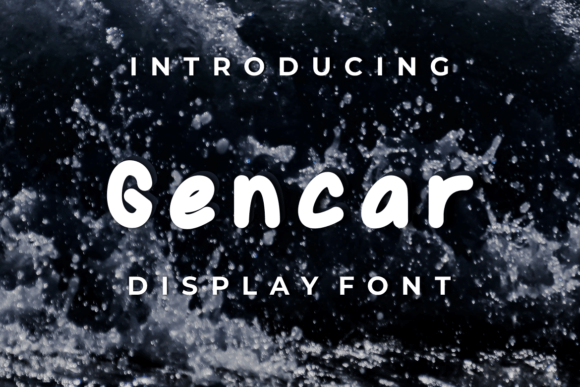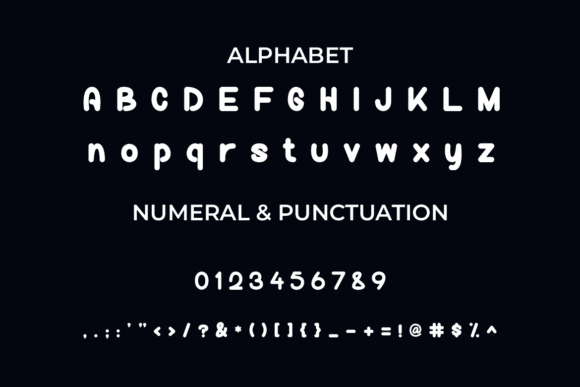
Unlock Your Creativity with the Gencar Font
Have you ever been stuck in a design rut, unable to find the perfect font to bring your vision to life? We’ve all been there. But what if I told you that there’s a font that’s guaranteed to add a spark of creativity to your next project? Enter the Gencar Font, a fun and quirky display font that’s about to become your new best friend.
The Gencar Font is more than just a pretty face – it’s a versatile tool that can elevate any creation, from eye-catching social media graphics to engaging advertising campaigns. Its unique character and playful vibe make it an instant hit with designers, and its value lies in its ability to add a touch of personality to even the most mundane designs.
- Unique Characteristics: Gencar Font features a modern and sleek design with clean lines, making it ideal for use in digital products, web design, and corporate branding.
Gencar Font Review
I recently had the chance to work with the Gencar font, and I must say it’s a unique addition to any design project. Here’s my honest take on this font.
- The Gencar font has a clean and modern aesthetic that works well for digital interfaces and print materials.
- The font is highly customizable, making it easy to adjust to different design needs.
- The font supports a wide range of languages, making it a great option for international projects.
- The font is highly legible, even at small font sizes.
- The font can feel a bit generic and lacks a distinct personality, which may not be suitable for projects that require a unique voice.
- The font may not be the best choice for projects that require a lot of emphasis or drama, as it can feel a bit flat.
- The font’s customization options can be overwhelming for beginners, making it difficult to find the right settings.
The Gencar font is a solid choice for designers who need a clean and modern font that’s easy to customize. While it may not be the most exciting option, it’s a reliable choice that can help get the job done. With a bit of tweaking, it can be a great addition to any design project.
Tips for Getting the Most Out of Gencar Font
Here are some tips to help you get the most out of Gencar Font:
- Pair Gencar Font with other fonts to create a unique and visually appealing design.
- Use Gencar Font for headings and titles to add emphasis and hierarchy to your design.
Common Use Cases for Gencar Font
Gencar Font is commonly used in:
- Logos and branding materials.
- Website design and development.
Alternatives to Gencar Font for Designers
1. Poppins Font
Poppins Font is a modern sans-serif font designed by Indian type foundry, Indian Type Foundry. It is a versatile font suitable for various applications, including digital products, print materials, and wayfinding systems. Poppins Font is ideal for use in titles, headings, and body text where a clean and professional look is desired.
Compared to Gencar Font, Poppins Font has a more modern and sleek appearance, making it suitable for contemporary designs. While Gencar Font has a more traditional feel, Poppins Font is more adaptable to various design styles.
Montserat Font is a sans-serif font designed by Julieta Ulanovsky. It is inspired by the urban environment of Buenos Aires and is characterized by its geometric and modern design. Montserrat Font is suitable for use in digital products, print materials, and signage systems. It is ideal for use in titles, headings, and body text where a strong and modern look is desired.